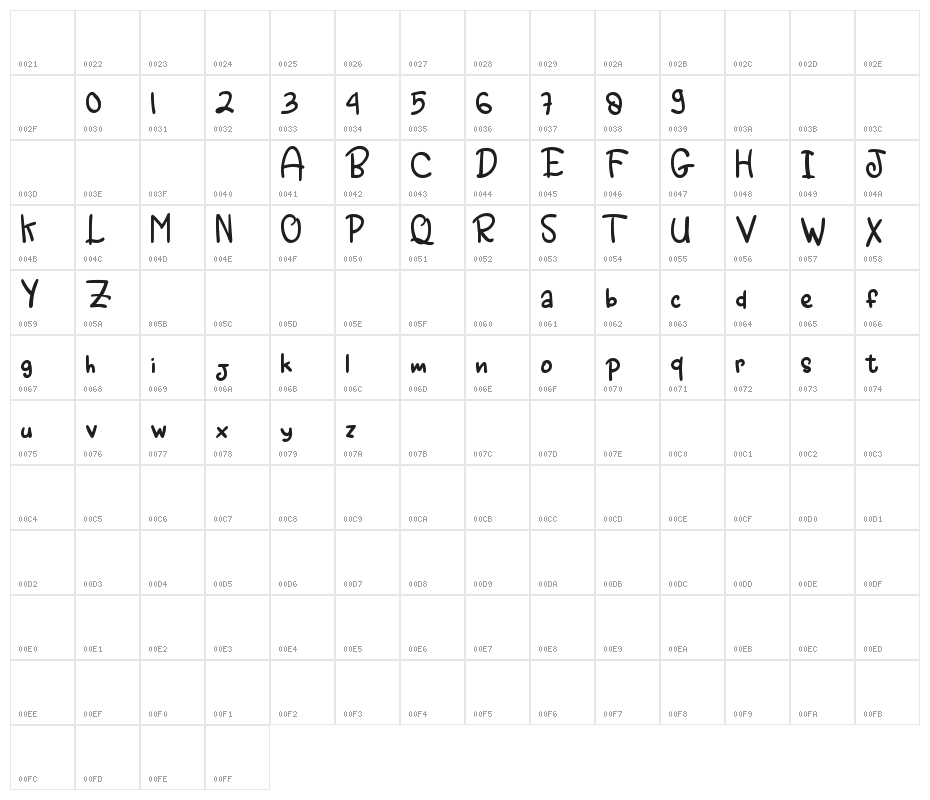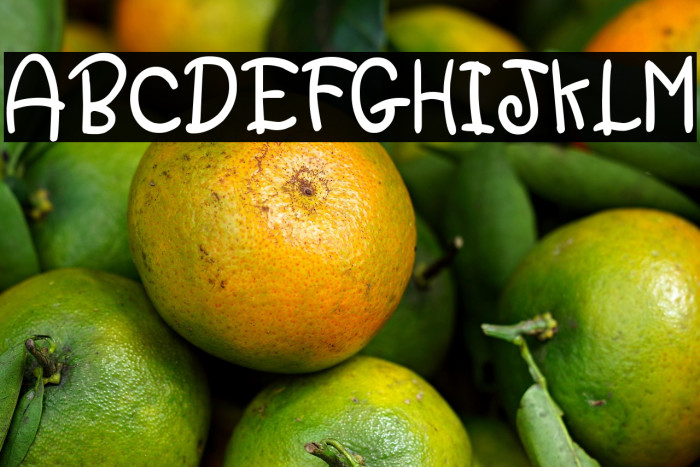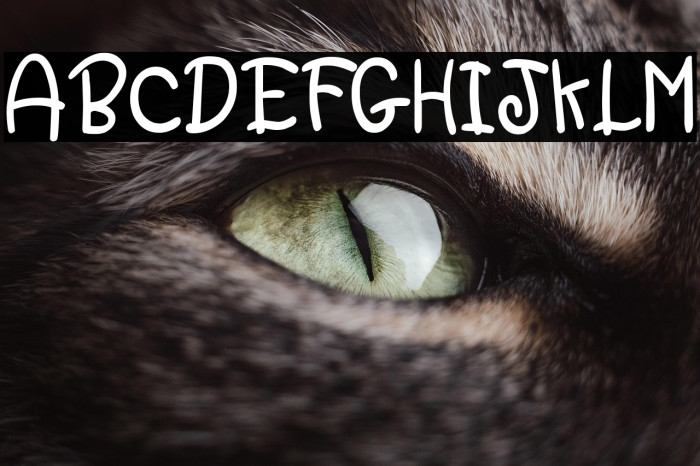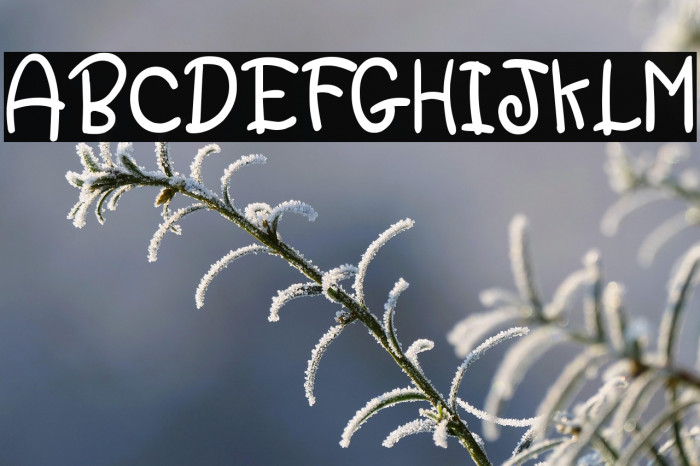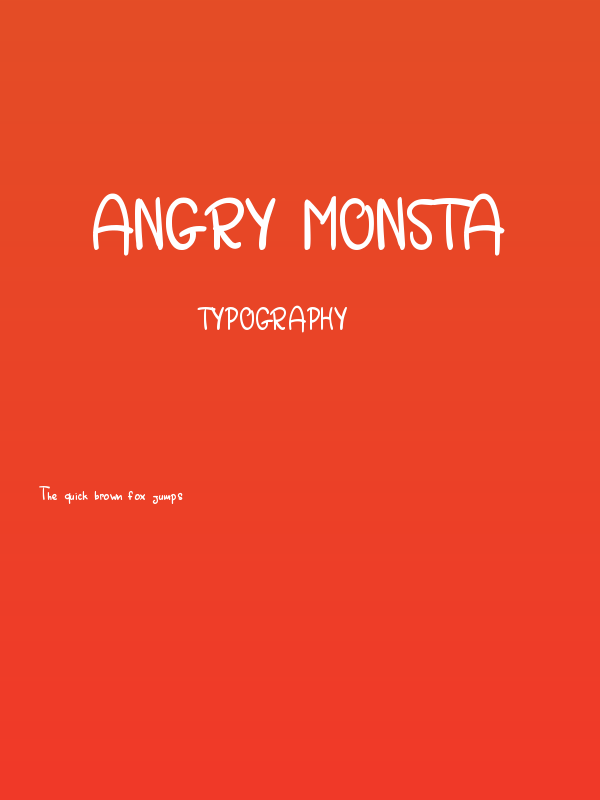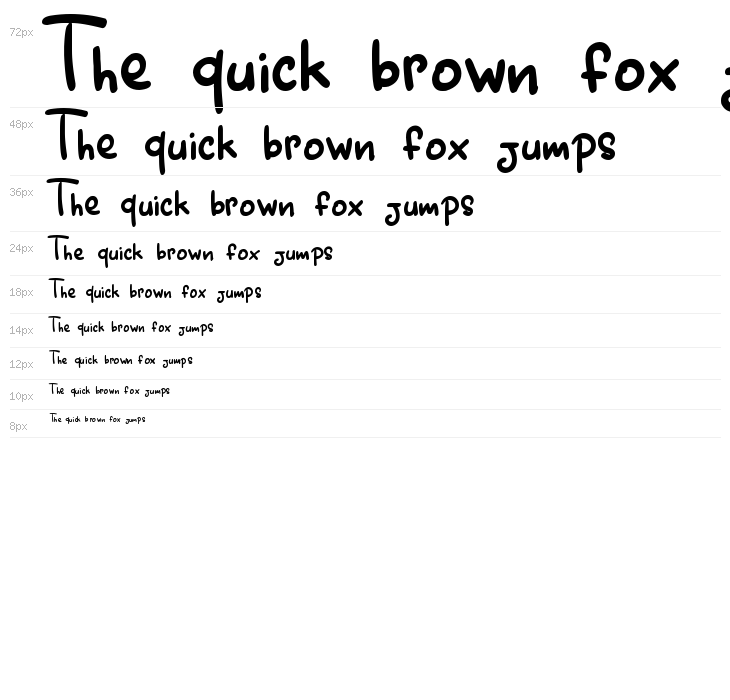
ANGRY MONSTA Font
ANGRY MONSTA Description
This playful and energetic font features a hand-drawn style with a whimsical touch. The letters are bold and rounded, giving a friendly and approachable feel. The uppercase characters have a slightly irregular baseline, adding to the casual and informal vibe. The lowercase letters maintain a consistent flow, with some characters having unique loops and curves that enhance the font's quirky personality. The numbers are equally playful, with a consistent weight and style that matches the alphabet. This font is perfect for projects that require a fun and lively aesthetic.
| Overall Style | Playful, Casual |
| Proposed Projects | Ideal for children's books, playful branding, greeting cards, and casual social media graphics. |